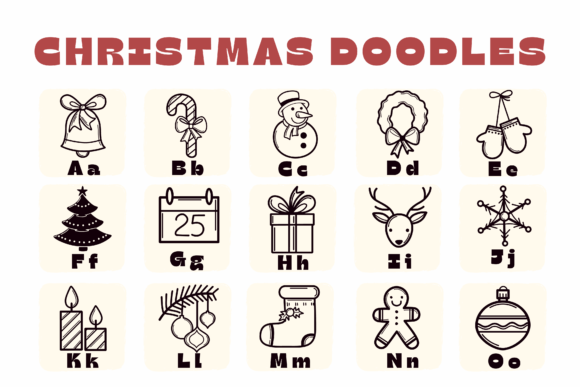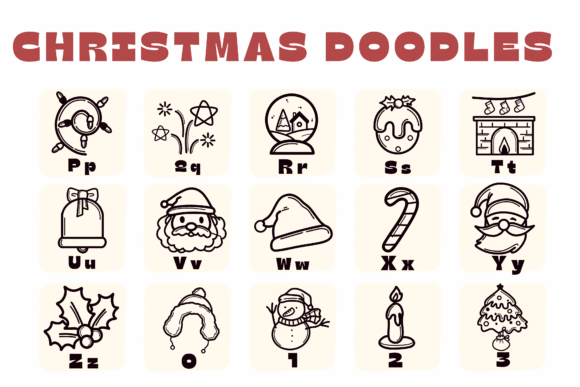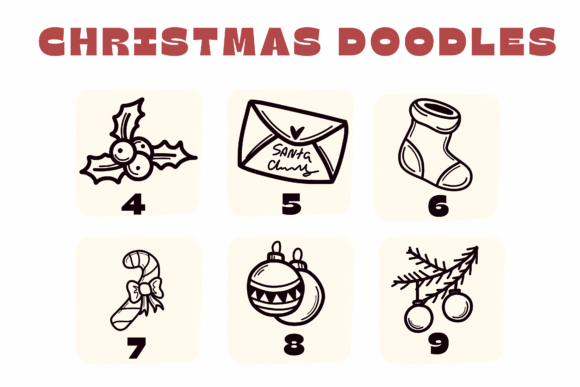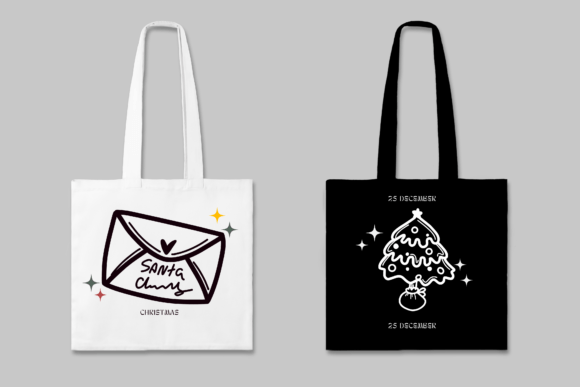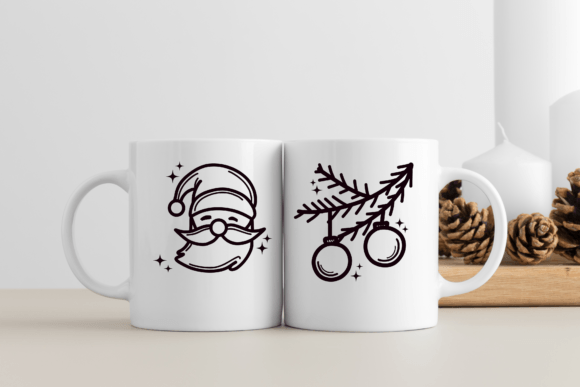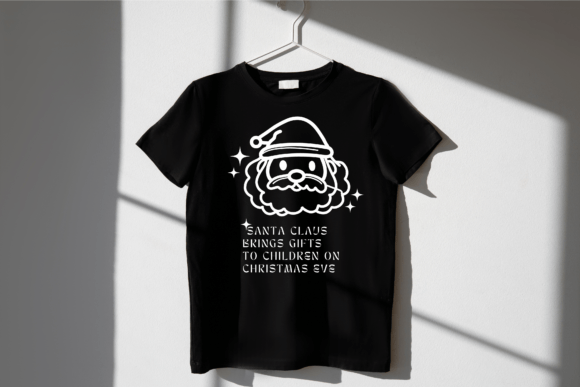
Christmas Doodles Font: Add a Touch of Whimsy to Your Holiday Projects
Are you looking for a unique and playful font to add some festive flair to your holiday projects? Look no further than Christmas Doodles Font! This delightful dingbats font features a charming sketch style that’s perfect for designers, crafters, and anyone looking to add a touch of whimsy to their creative endeavors.
What is Christmas Doodles Font?
Christmas Doodles Font is a specially designed dingbats font that captures the essence of the holiday season with a playful and sketchy twist. The font is made up of intricate doodles and illustrations that evoke a sense of nostalgia and fun, making it perfect for a wide range of creative projects.
What Can I Use Christmas Doodles Font For?
The possibilities are endless with Christmas Doodles Font! This versatile font can be used to enhance a variety of creative projects, including:
- Wedding invitations and holiday cards
- DIY crafts and decorations
Why Choose Christmas Doodles Font?
So why choose Christmas Doodles Font for your holiday projects? Here are just a few reasons:
- Unique and playful style: Christmas Doodles Font features a one-of-a-kind sketch style that’s sure to add a touch of personality to your projects.
- Easily scalable: This font is designed to be easily scalable, making it perfect for use in a variety of projects, from small crafts to large banners.
Tips for Using Christmas Doodles Font
Here are a few tips for getting the most out of Christmas Doodles Font:
- Experiment with different sizes and colors: Don’t be afraid to play around with different sizes and colors to find the perfect look for your project.
- Combine with other fonts: Try pairing Christmas Doodles Font with other fonts to create a unique and eye-catching look.
- Use for accents and highlights: Use Christmas Doodles Font to add accents and highlights to your project, such as decorative borders or icons.
- Dingbats font with a sketch style theme
- Perfect for holiday projects, wedding invitations, DIY crafts, and more